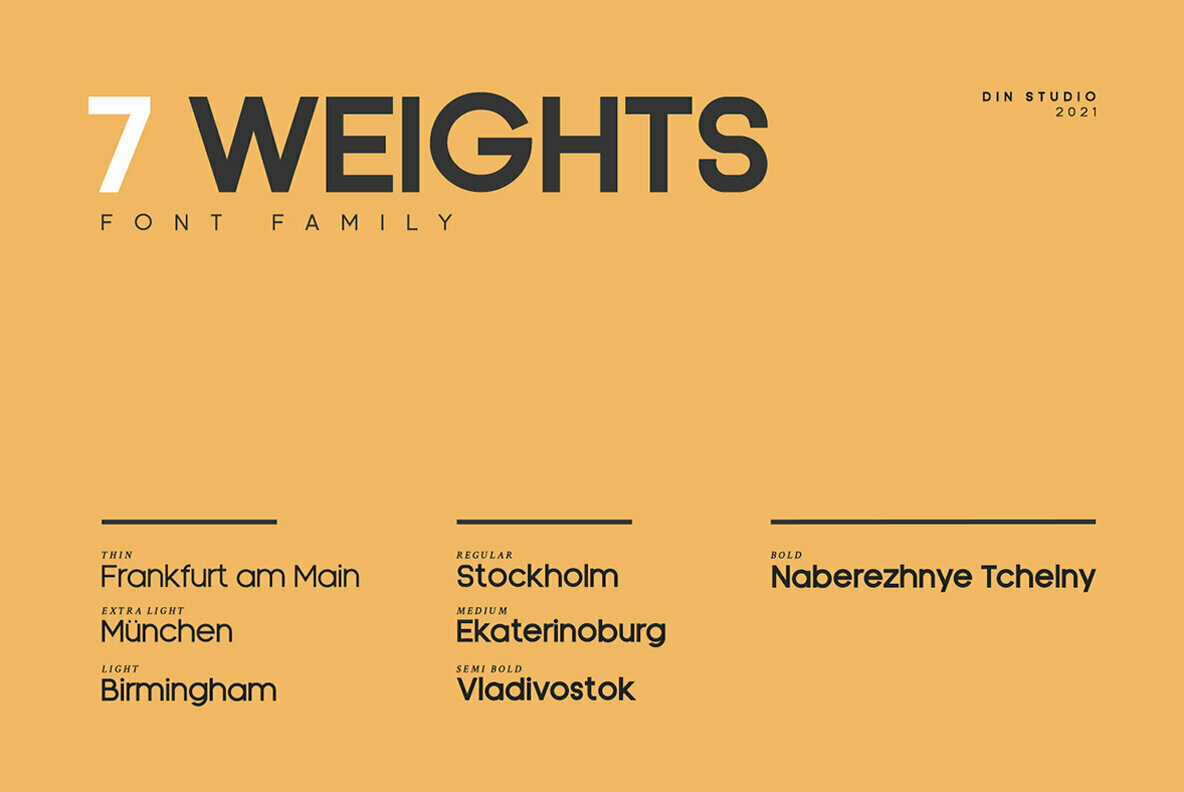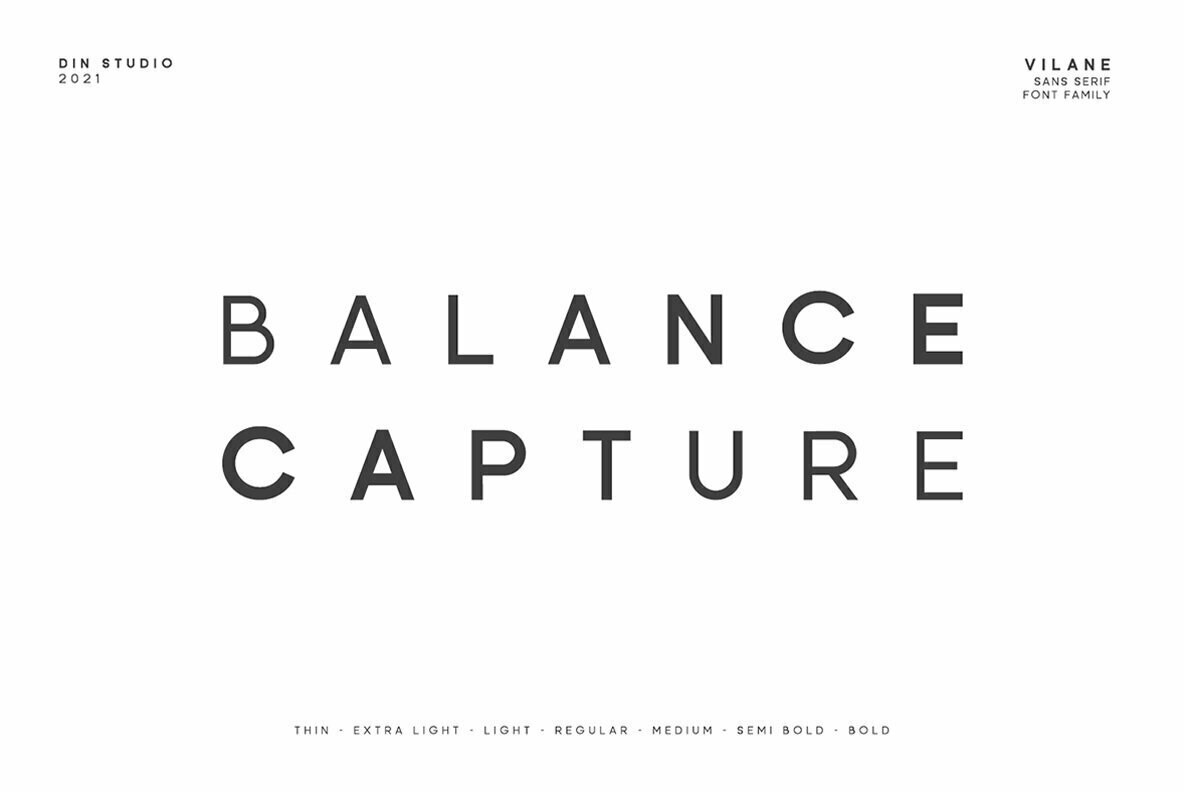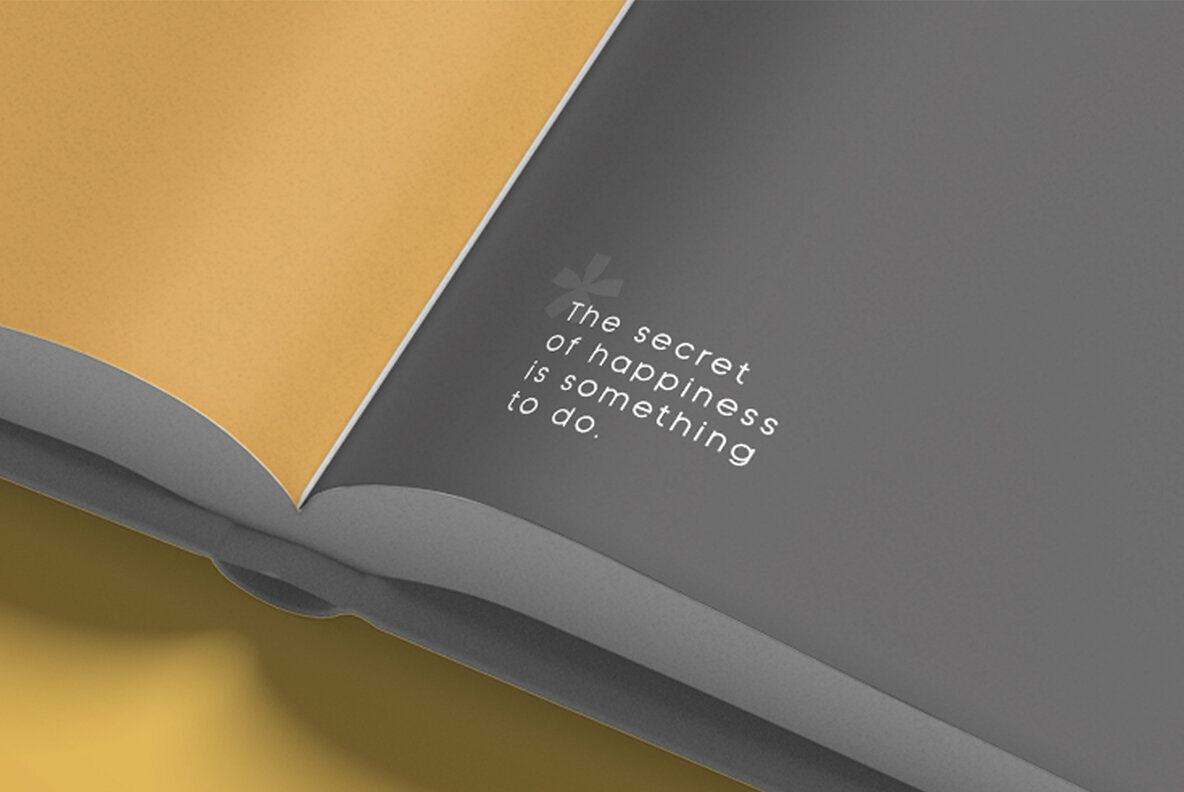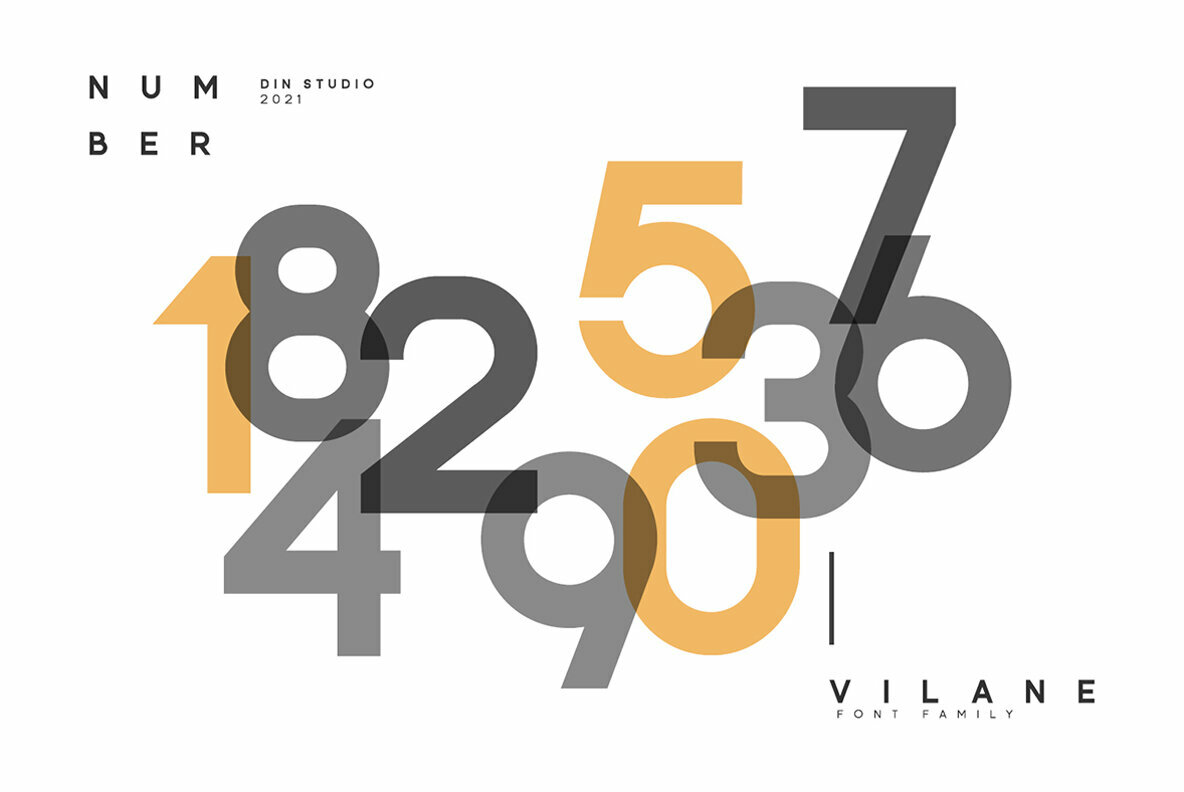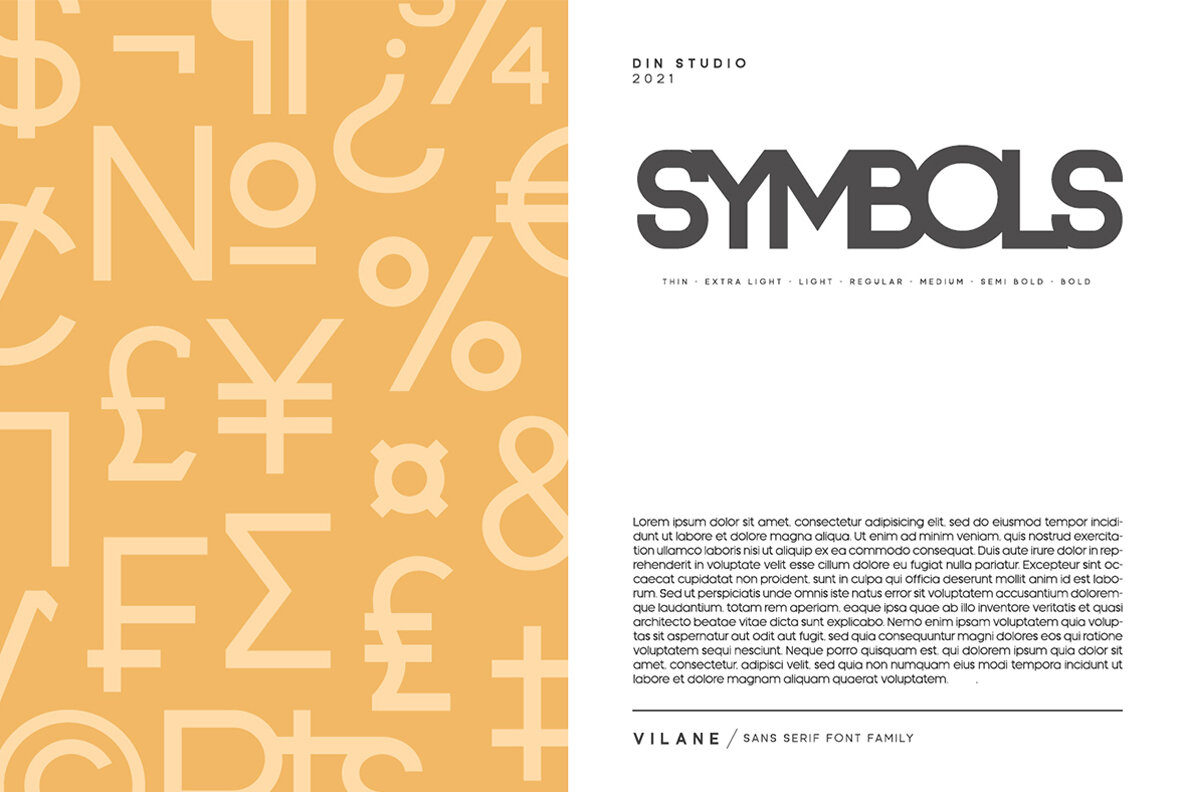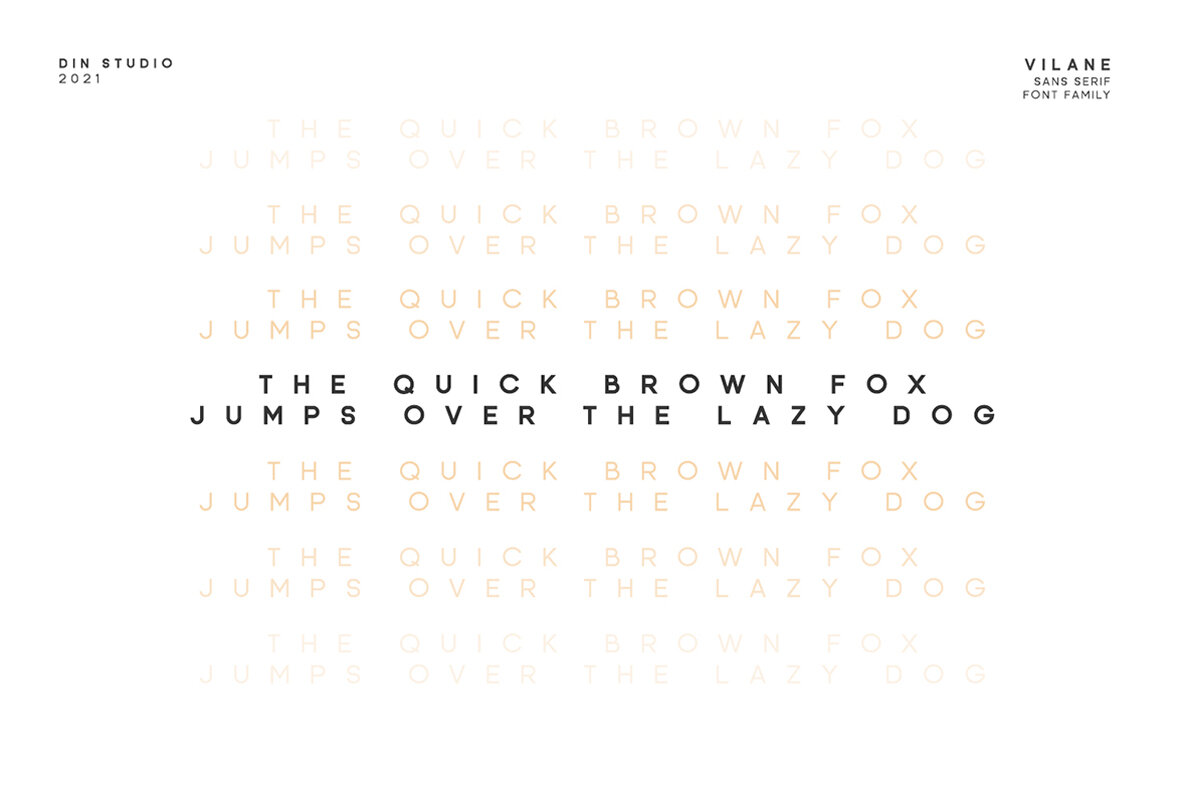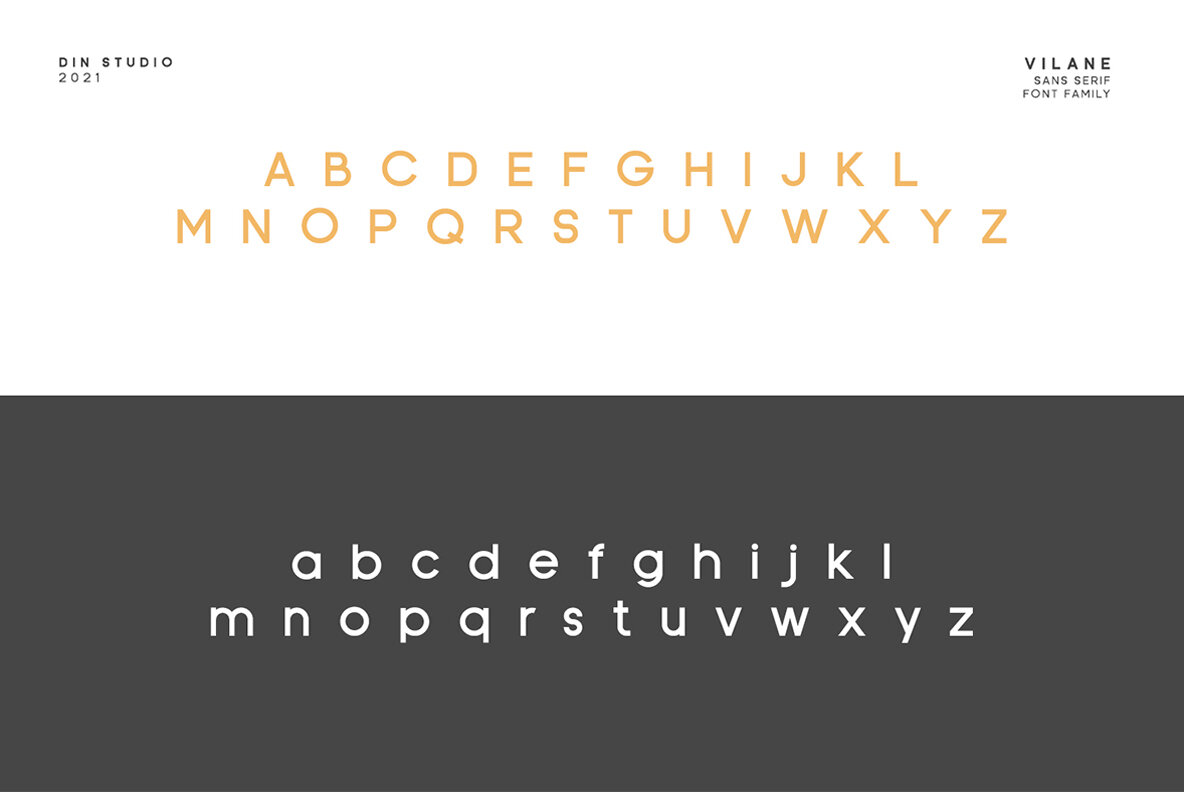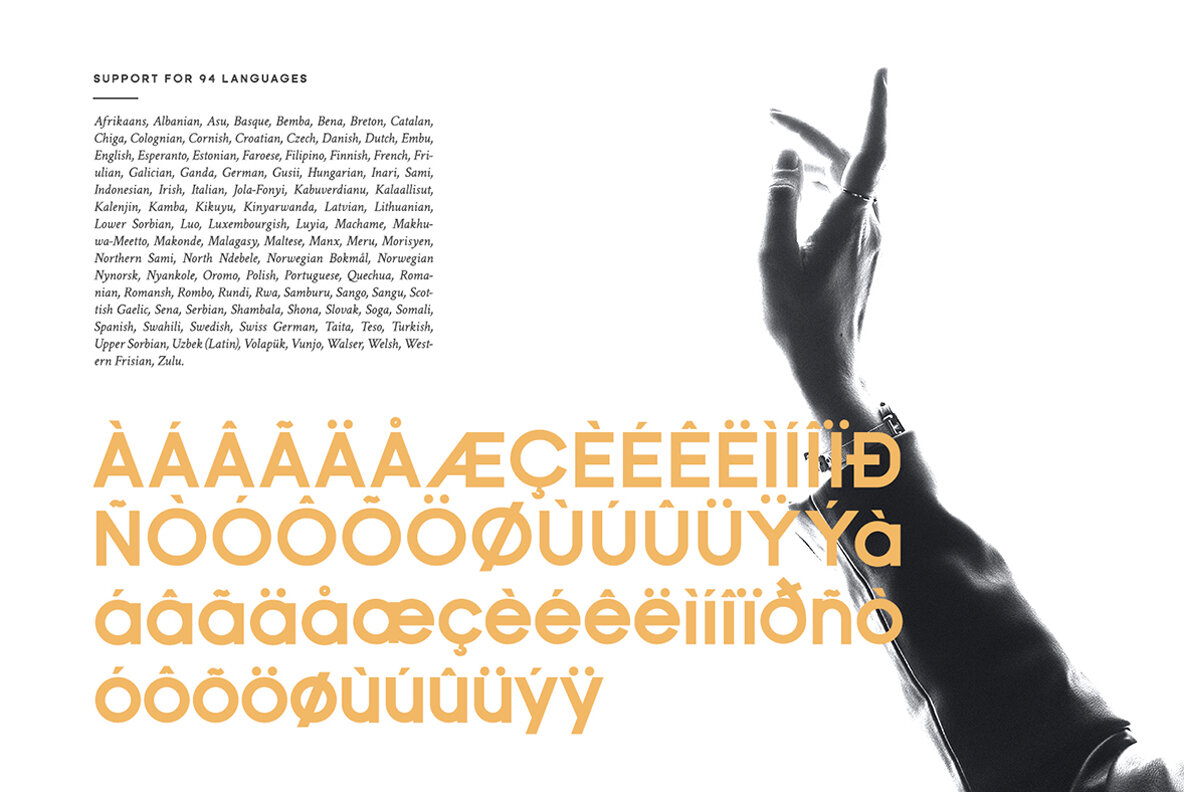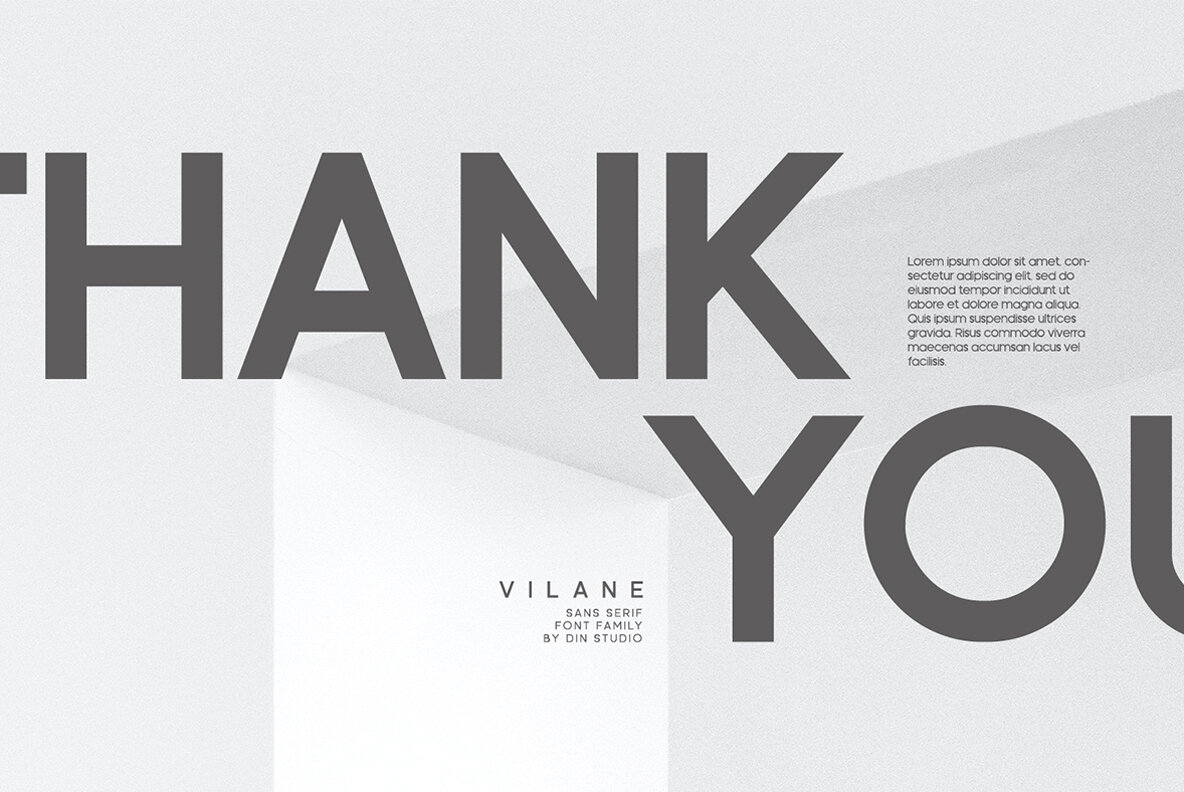
Vilane Font
A package that will delight you. With this family, you will get many options to captivate, engage, and inspire your audience and clients. These fonts can be used for a host of different content needs and projects. Perfect for social media branding projects, fashion designs, printed quotes, packaging, or even as a stylish text overlay to any background image.
Our font always includes Multilingual Support to make your branding reach a global audience.
Inspire your audience, clients, or guests with this beautiful, statement font.